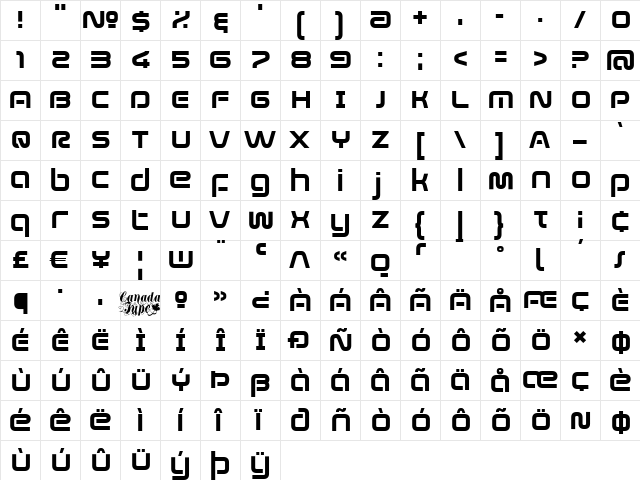
Evolver Regular
| Foundry | Canada Type |
| Designer | Rebecca Alaccari |
Design Context for Evolver Typeface
Evolver takes a measured approach to typography — its balanced proportions and neutral character make it a reliable workhorse for both digital and print work.